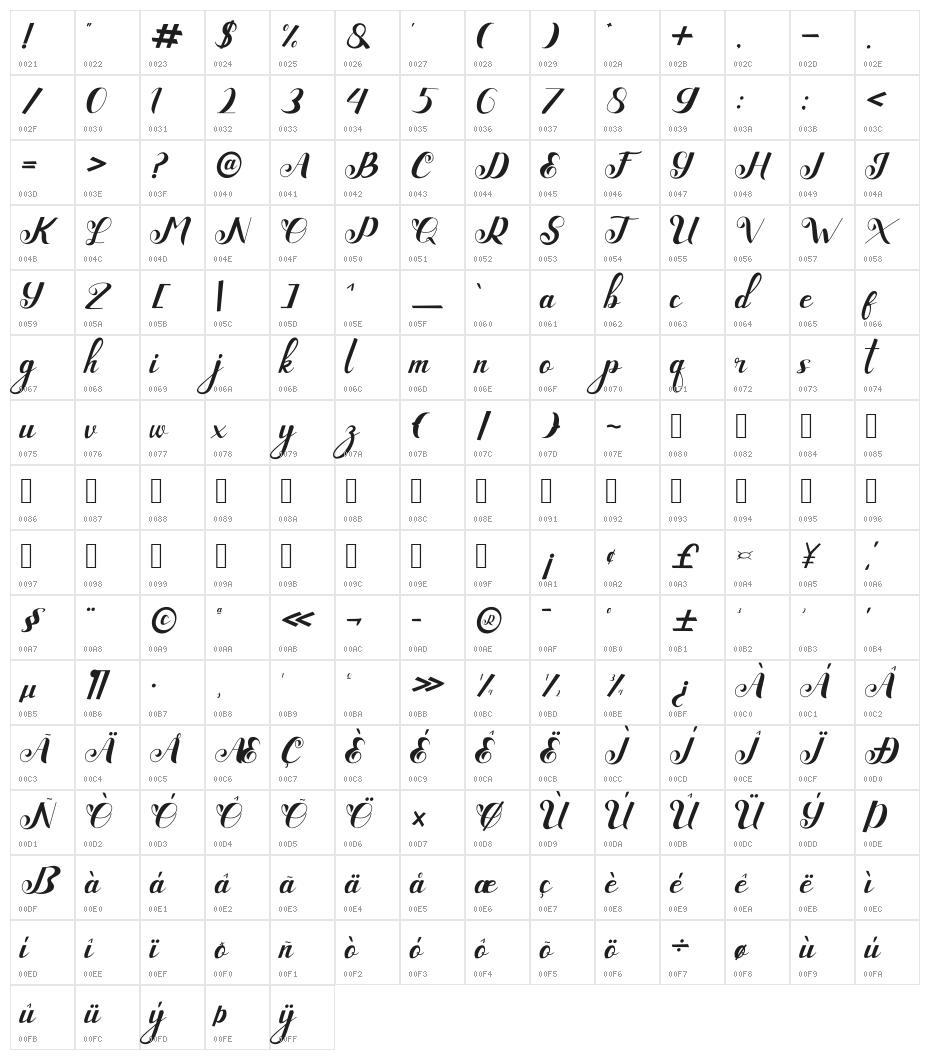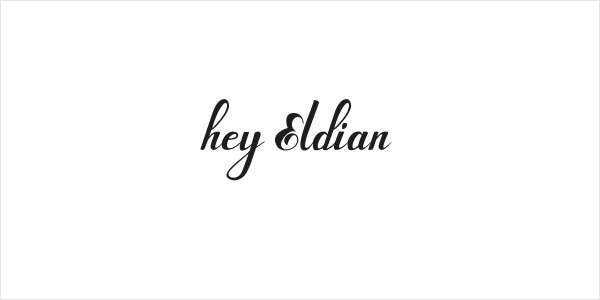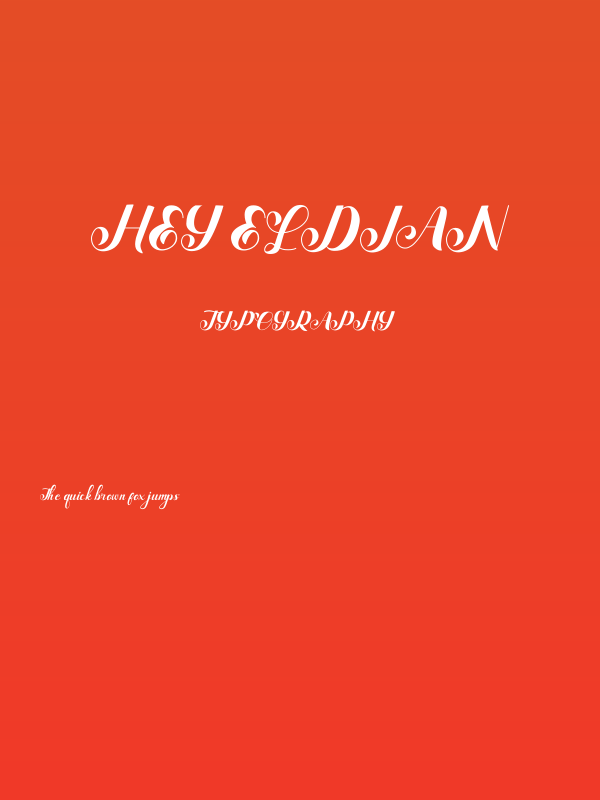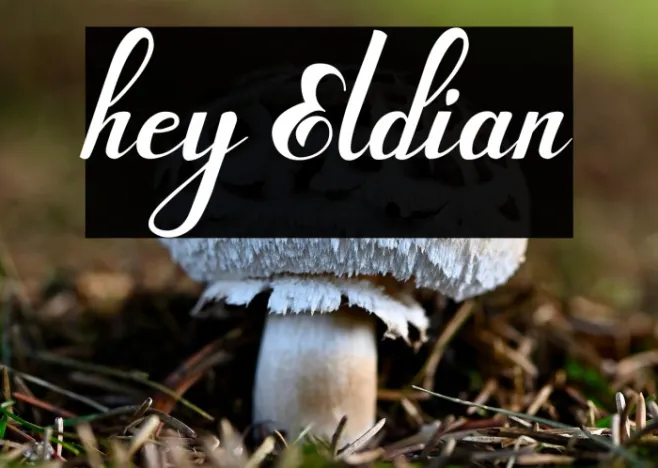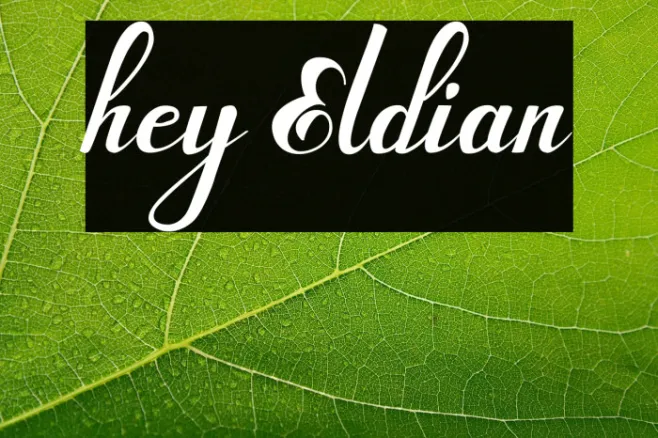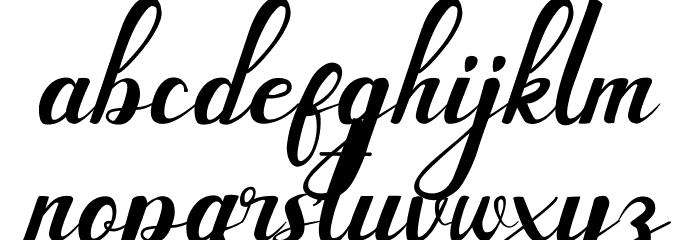
hey Eldian Font
hey Eldian Description
This elegant script font features flowing, cursive letters with a sophisticated flair. The uppercase letters are adorned with intricate loops and swirls, giving them a decorative and ornate appearance. The lowercase letters maintain a smooth and connected style, enhancing the font's fluidity. Numbers and special characters are designed with the same attention to detail, ensuring consistency throughout. This font's graceful curves and stylish embellishments make it ideal for projects that require a touch of elegance and sophistication.
| Use Case | Logos, Invitations, Decorative headings |
| Proposed Projects | Ideal for wedding invitations, luxury branding, greeting cards, and elegant packaging designs. |